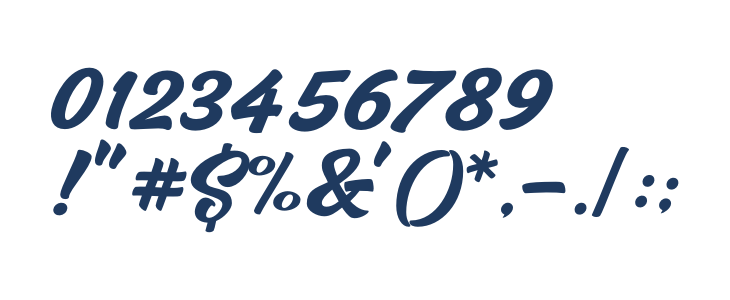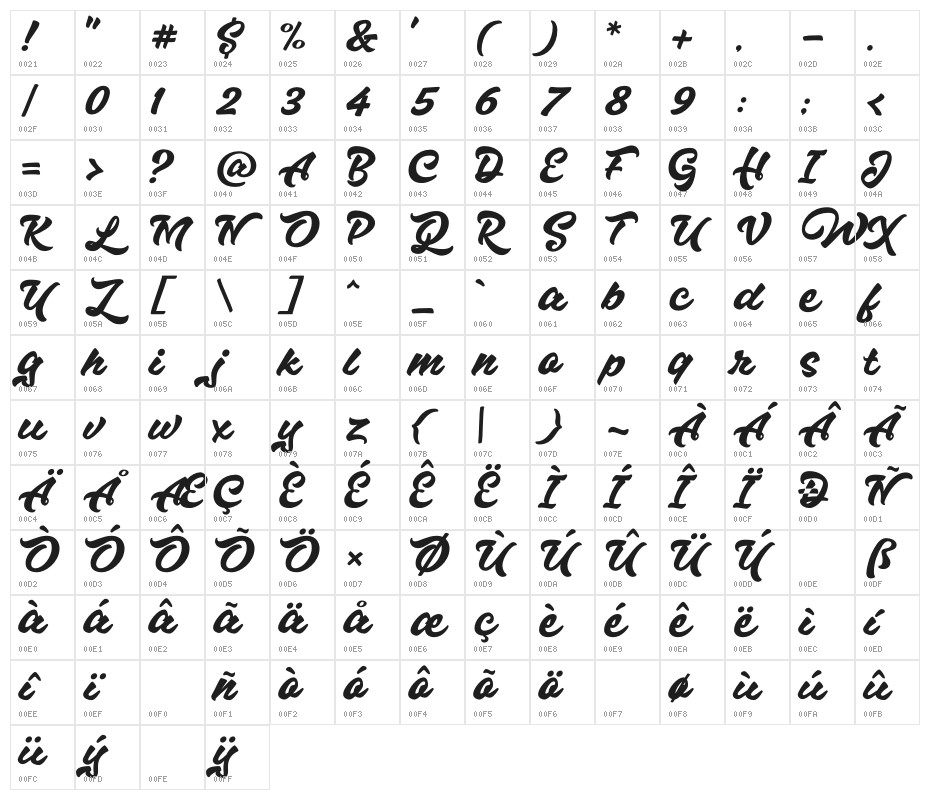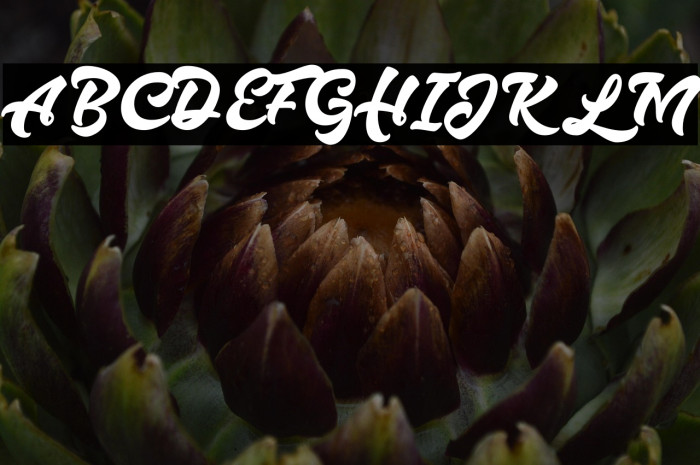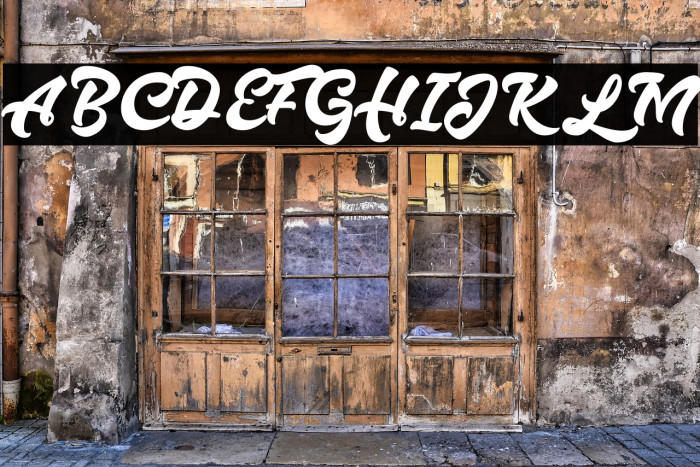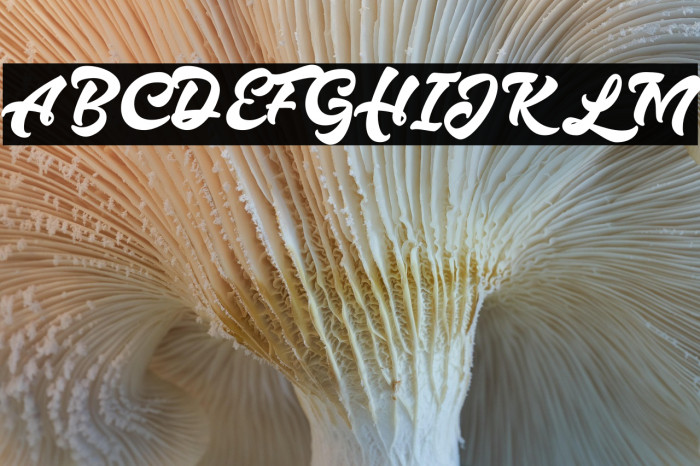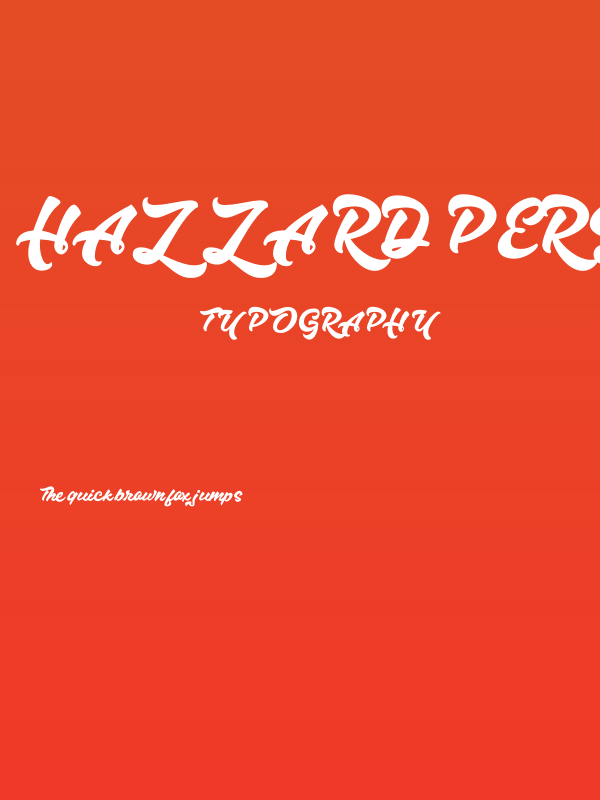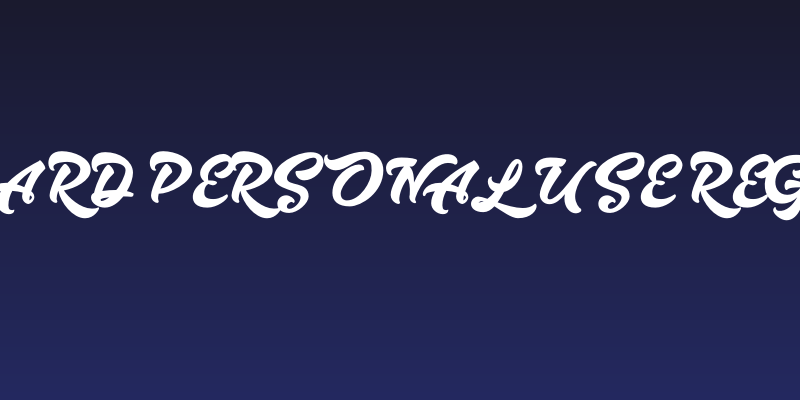
Hazzard Personal Use Regular Font
Hazzard Personal Use Regular Description
This font features a bold, cursive style with a strong emphasis on fluidity and movement. The characters are interconnected, creating a seamless flow that is both dynamic and expressive. The uppercase letters are slightly more elaborate, with sweeping curves and flourishes, while the lowercase letters maintain a consistent rhythm and balance. The numbers and special characters are designed to match the overall aesthetic, ensuring a cohesive look across all elements. The font's boldness makes it stand out, while the cursive style adds a touch of elegance and sophistication.
Proposed ProjectsIdeal for branding, logos, invitations, and decorative headlines.